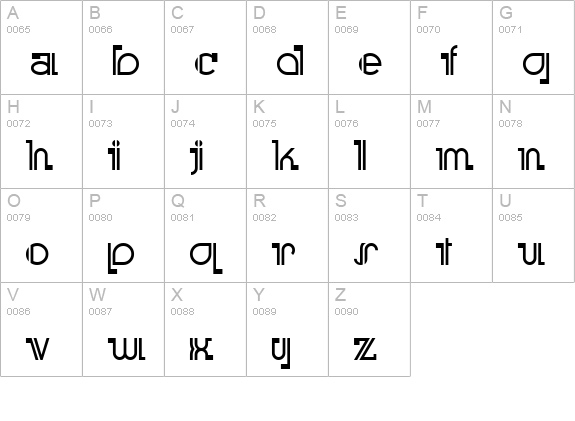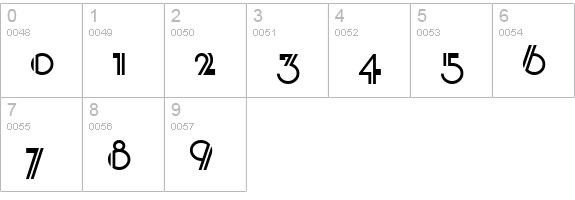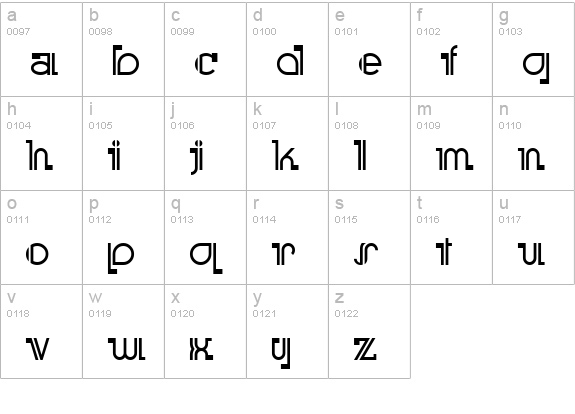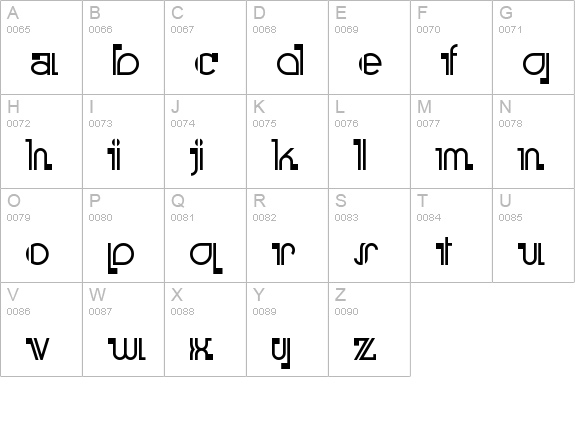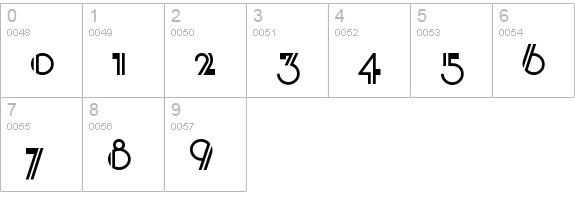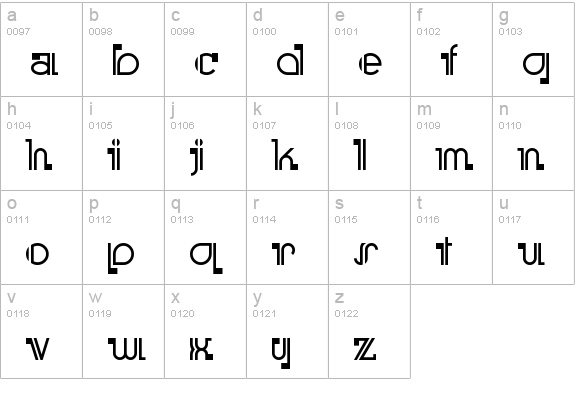
BooMeringueNF Font Details
Introducing BooMeringueNF, a delightful and whimsical font that will add a touch of playfulness to your designs. With its unique combination of bold and curvaceous letterforms, BooMeringueNF is perfect for projects that require a fun and energetic vibe. But what makes BooMeringueNF even more appealing is the fact that it is free! Yes, you read that right - this fantastic font is freely available to download at FontsMarket.com. Whether you're a professional designer or just someone who loves experimenting with different fonts, BooMeringueNF offers a budget-friendly option to elevate your creative endeavors. The versatility of BooMeringueNF knows no bounds. From children's book covers to party invitations, from logo designs to social media graphics, this font will bring a touch of joy to any project. Its cheerful and playful nature will instantly captivate your audience and leave a lasting impression. Not only does BooMeringueNF boast a wide range of characters, including uppercase and lowercase letters, numerals, and punctuation marks, but it also features ligatures and alternate characters for added customization options. This means that you can truly make BooMeringueNF your own and tailor it to suit your specific design needs. So why wait? Don't miss out on the opportunity to enhance your creations with BooMeringueNF. Download this extraordinary font for free at FontsMarket.com and let your imagination run wild. Unleash the power of BooMeringueNF and watch as your designs come to life with a dash of whimsy and charm.